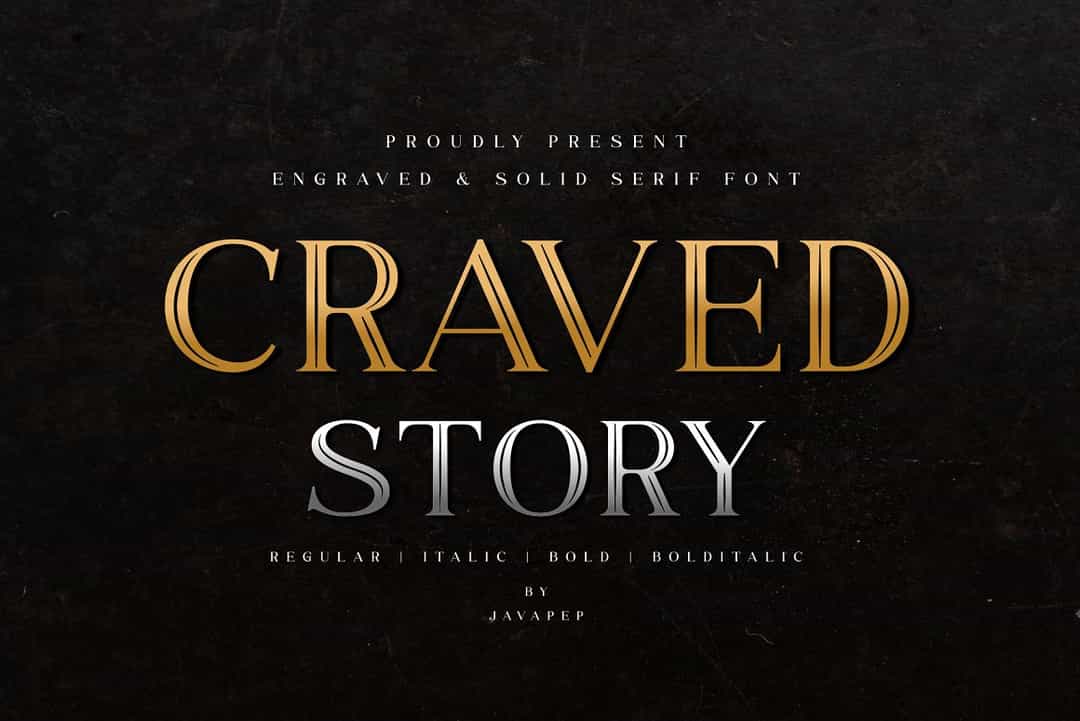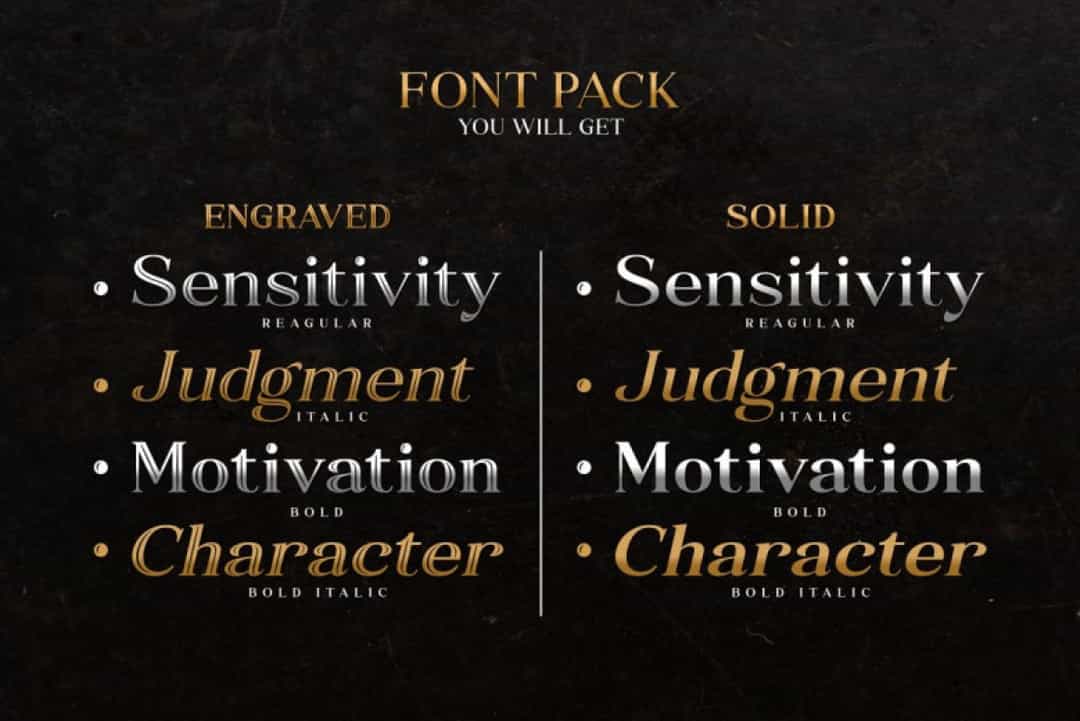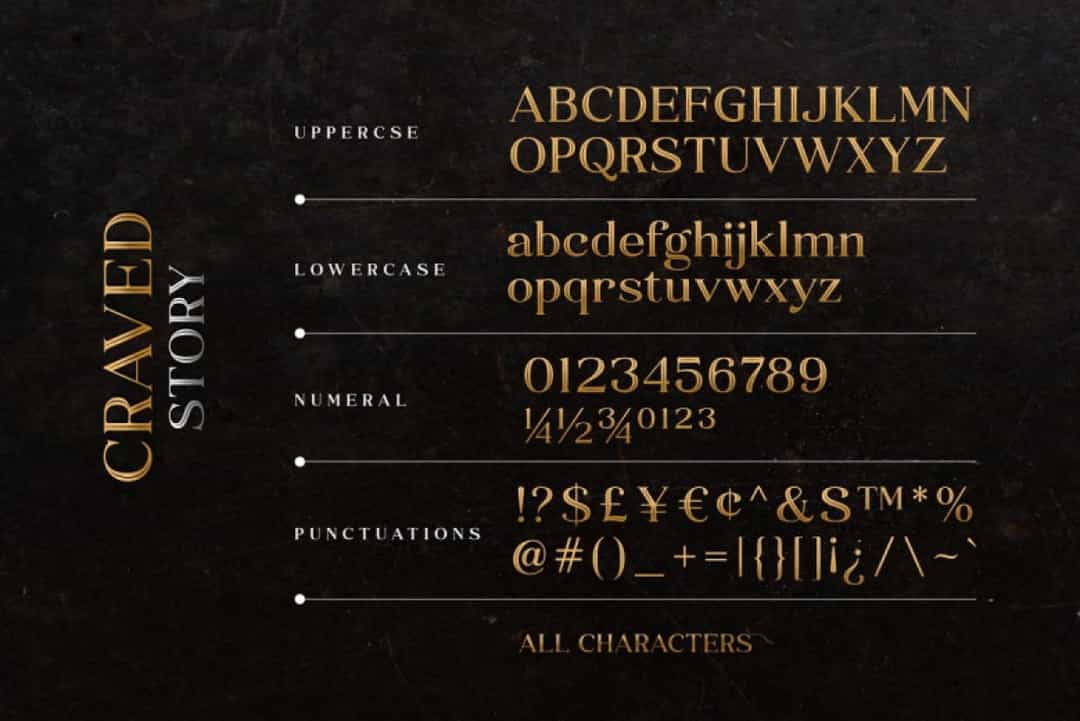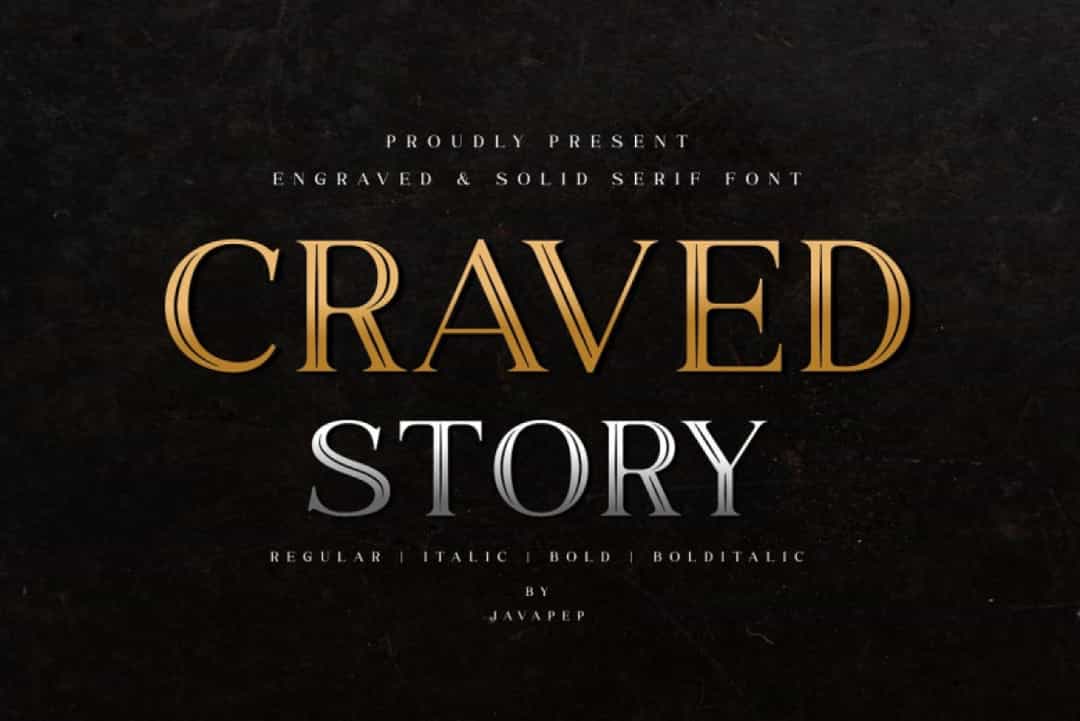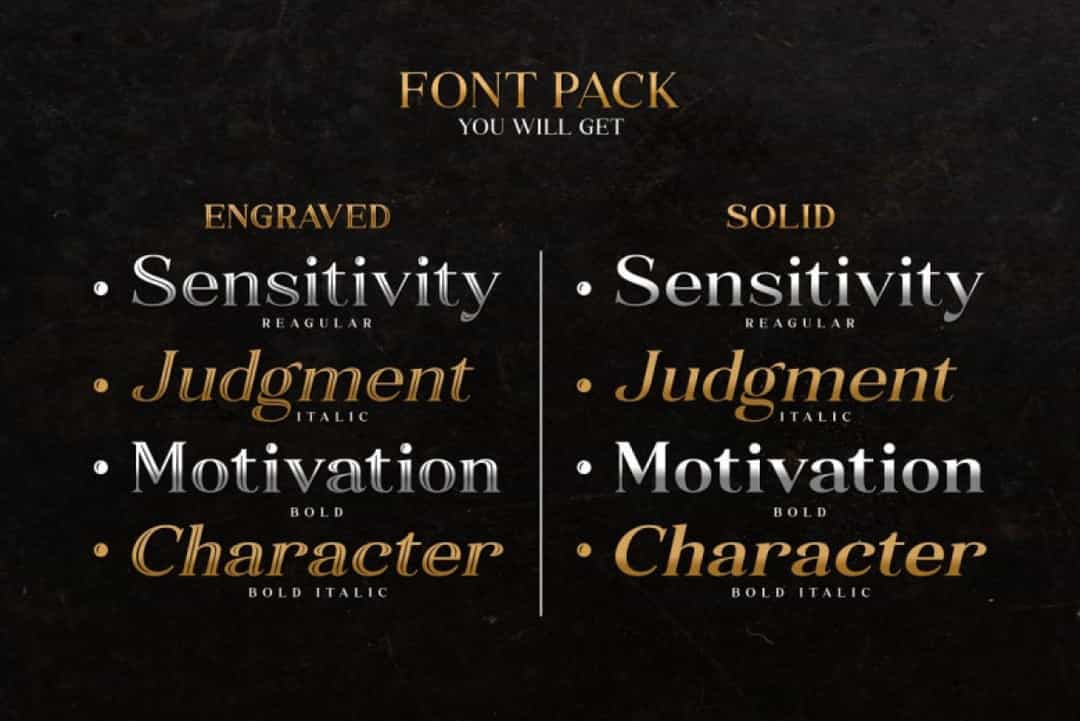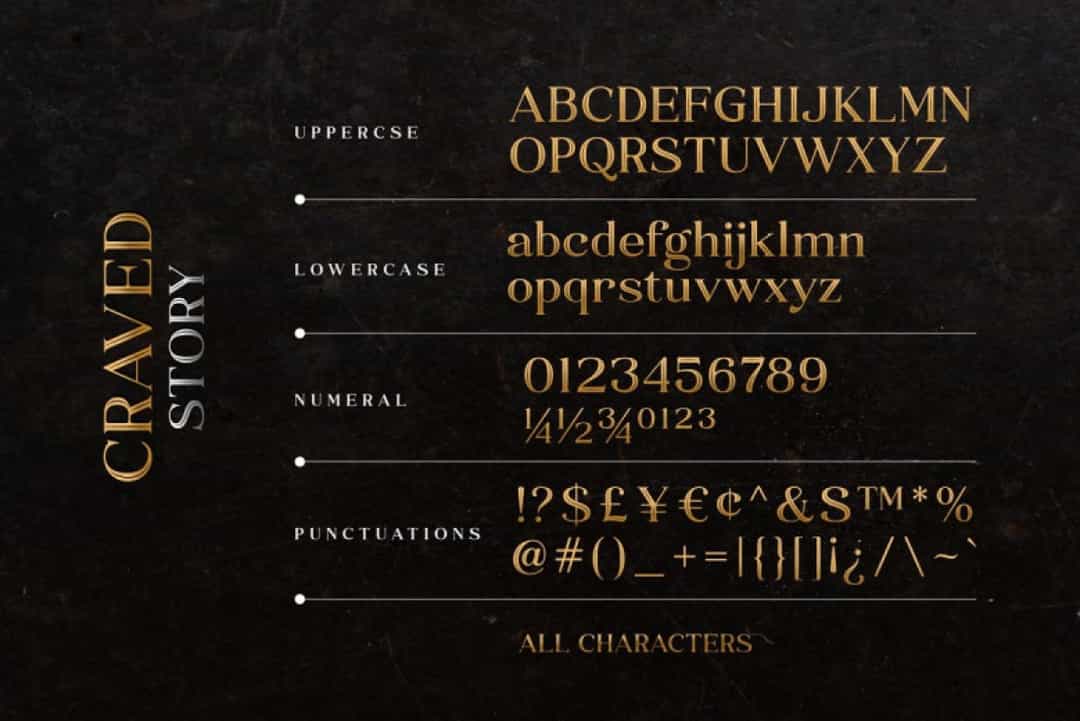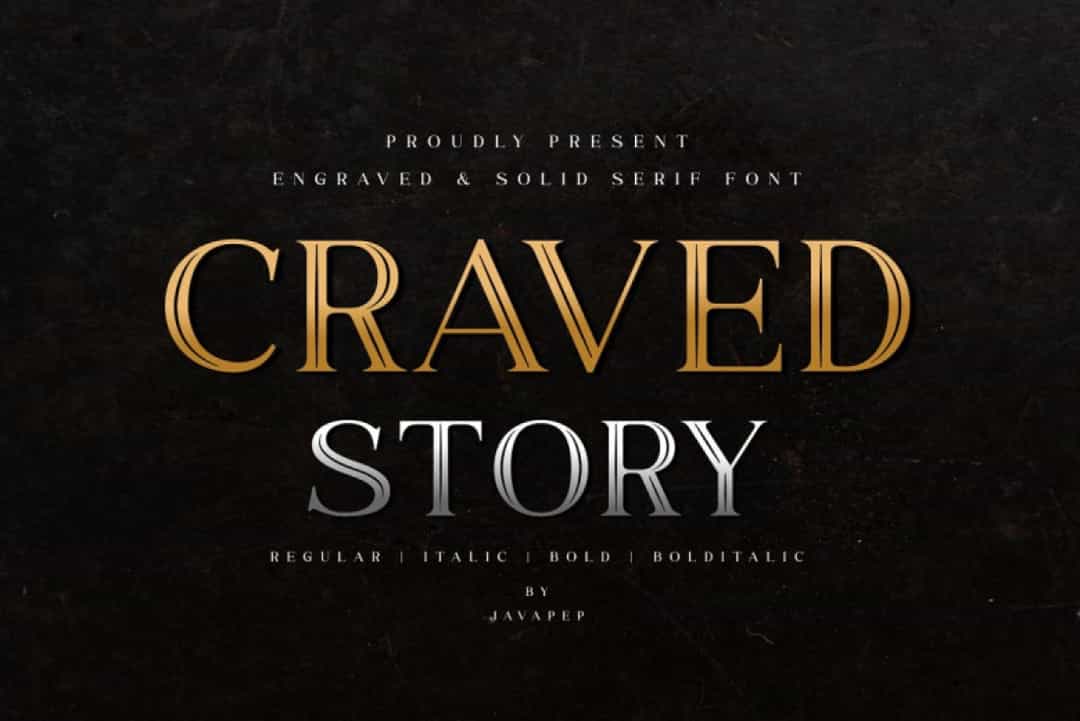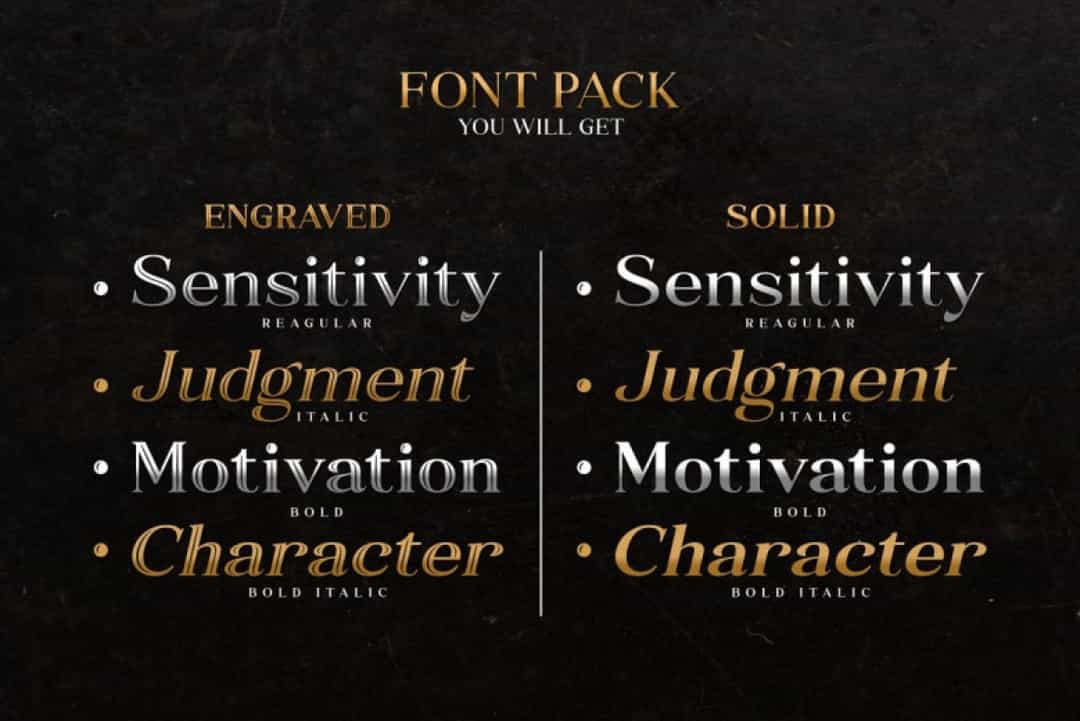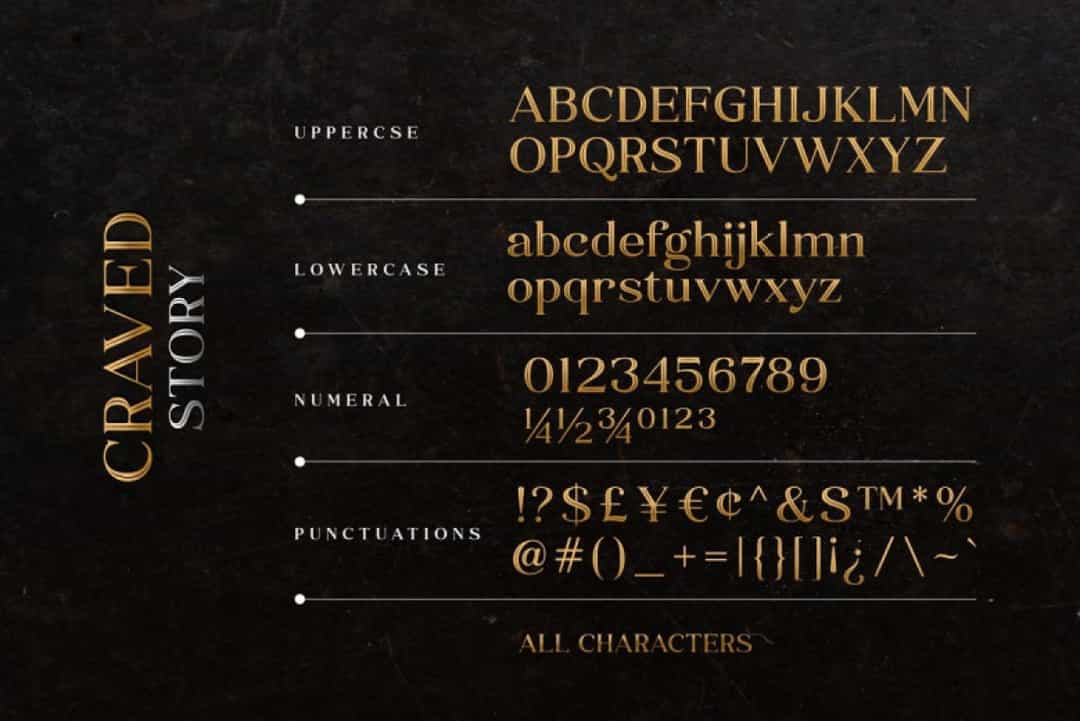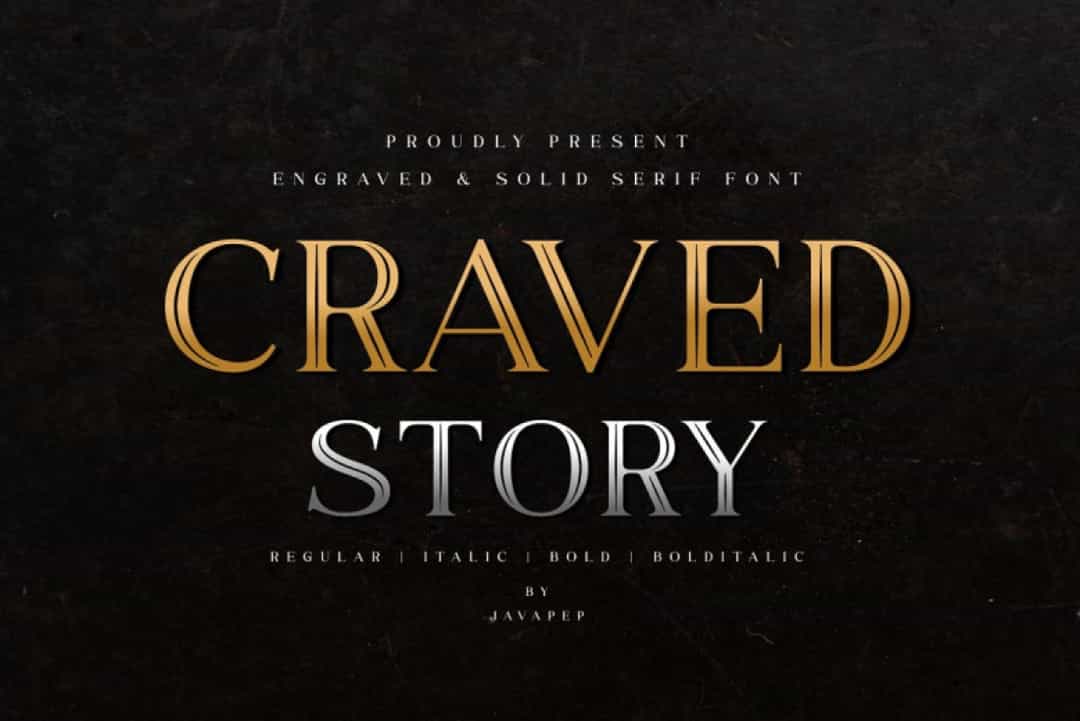
Craved Storyis a sophisticated serif typeface family designed to add sophistication and interconnected appeal. Engraving every aspect of its character adds chic sophistication that will make any project even more impressive.